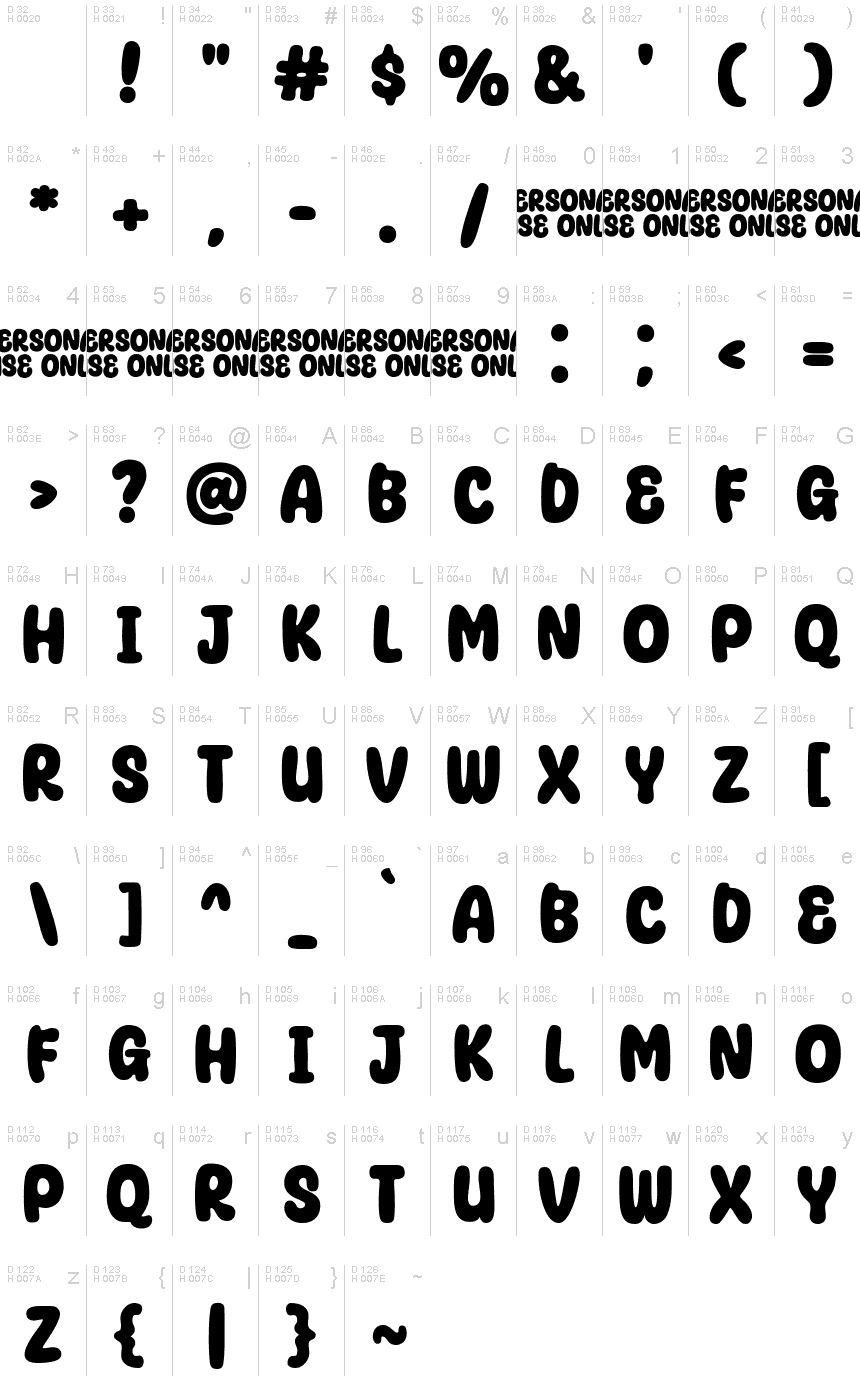
Super Donuts
Super Donuts, designed by fsuarez913, is a delightful and whimsical display font that exudes a playful cartoon-like charm.
Its bold weight and thick strokes make it an ideal choice for eye-catching headlines and attention-grabbing large-scale text. With its rounded edges and simple shapes, this font embodies a lighthearted and fun aesthetic that adds a touch of personality to any project. Whether you're designing children's books, comic strips, party invitations, or even baking blogs looking to add some visual flair, Super Donuts is the perfect choice to infuse your work with joyous energy.